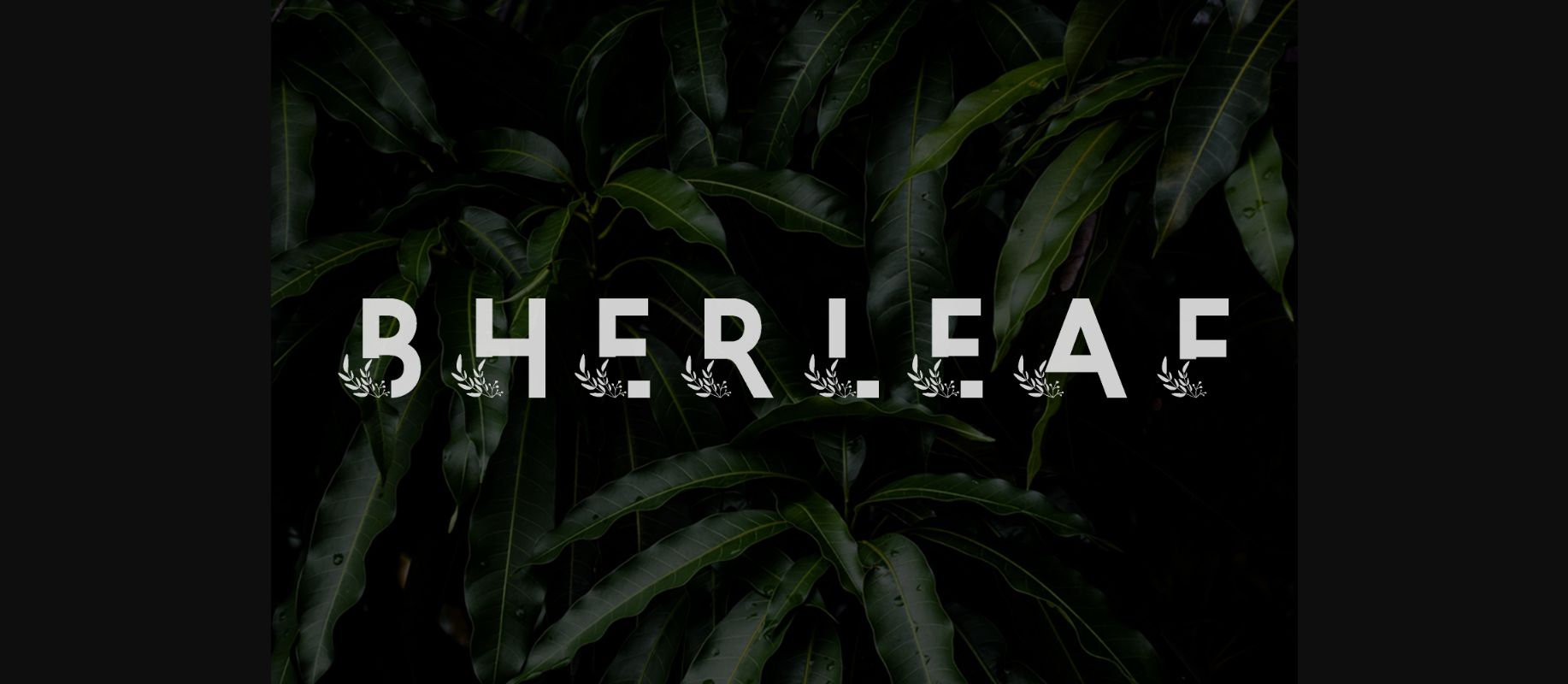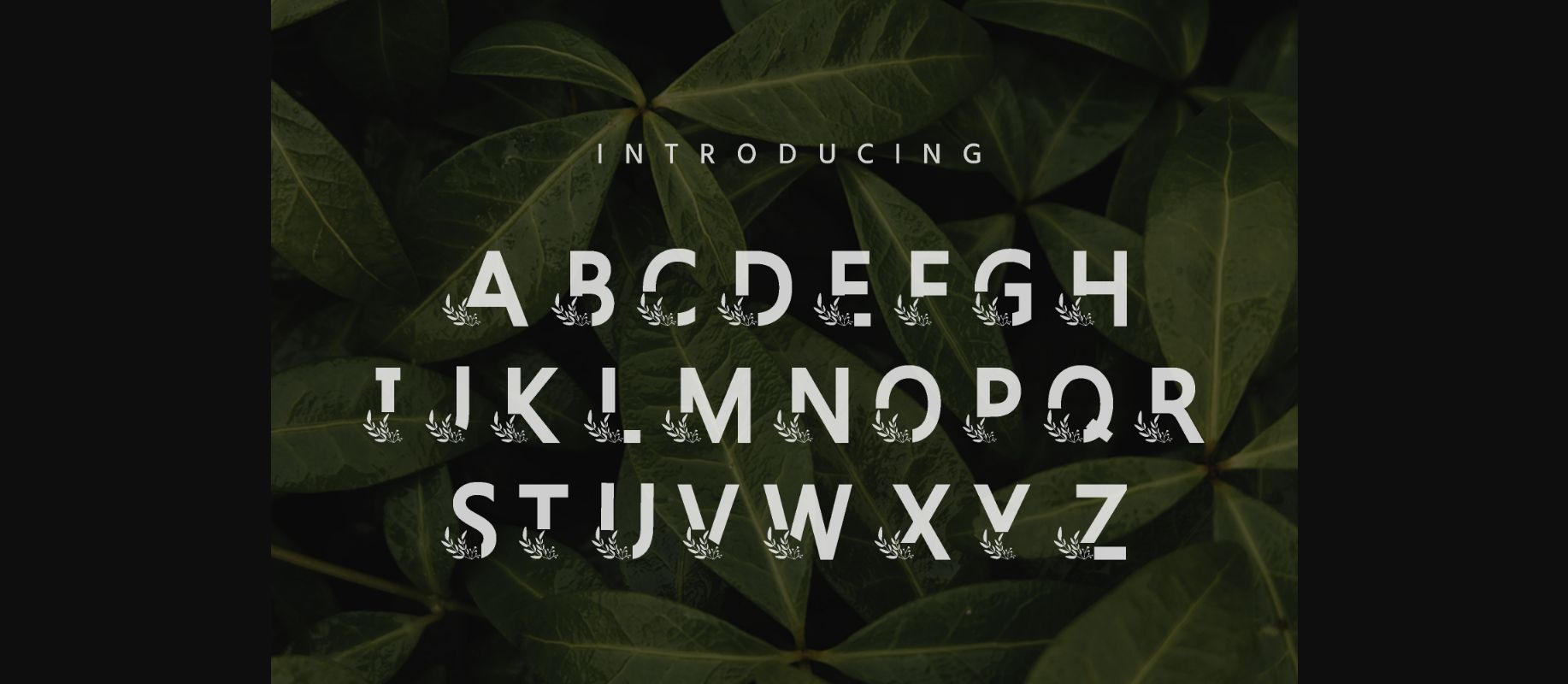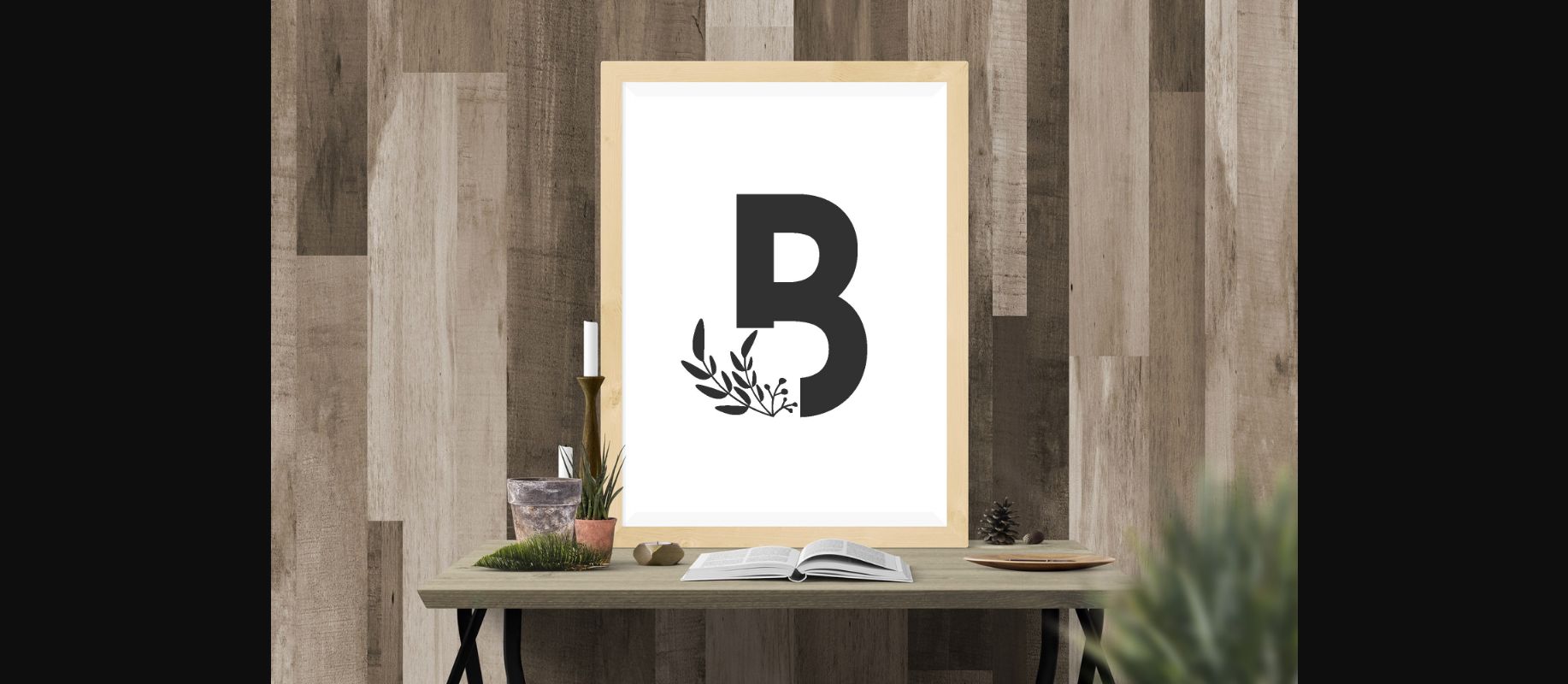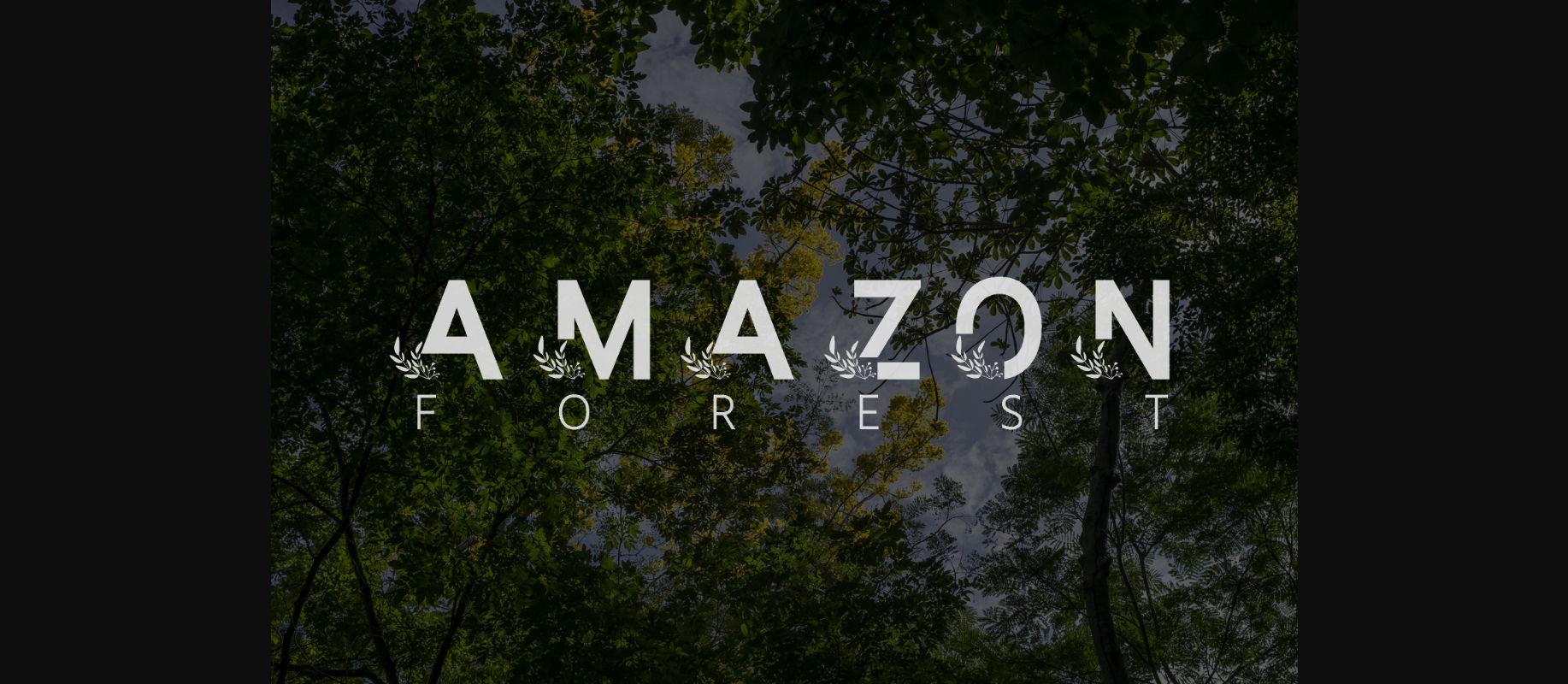
Bherleaf Font
About Bherleaf Font
Bherleaf is a bold yet lovely and delicate decorative font. This font is PUA encoded which means you can access all of the glyphs and swashes with ease!